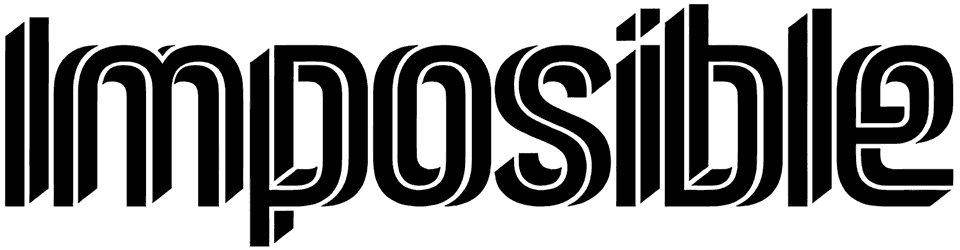
Imposible Font
You can not find a more tempting typeface than Imposible, a techno font that unbelievably offers two distinctive styles and widens your selection range in the middle of designing magical graphic content such as street posters, digital banners, applications, product packaging, and logos.
Since this sci-fi font is designed with a striped style, it can bewilder your audience by conveying a sense of dynamic, futuristic, modernity, and courage.
Designed by: Rodrigo Fuenzalida